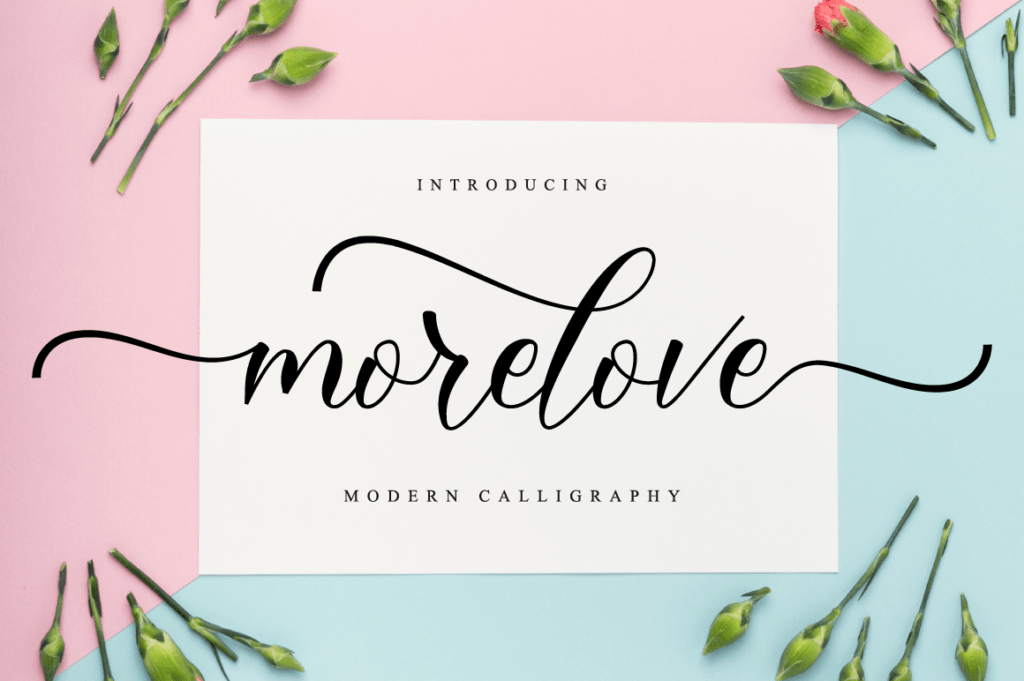
Morelove Font
Morelove Font is stunning and enchanting, but also incredibly modern. This versatile script font has a wide range of applications ranging from greeting cards to headlines and is guaranteed to add a romantic feel to your next project.
This font is PUA encoded which means you can access all of the beautiful glyphs and swashes with ease! It also features a wealth of special features including alternate glyphs and ligatures. Fall in love with its gorgeous swashes!
Morelove Calligraphy Script Font